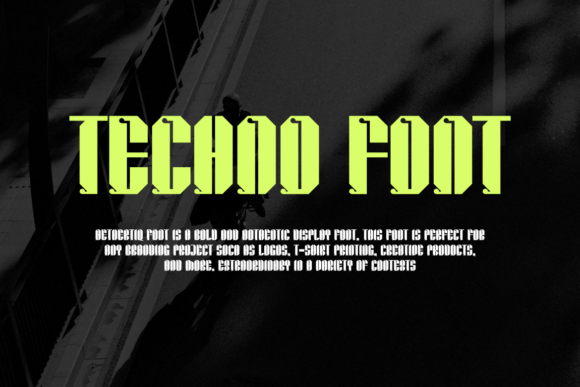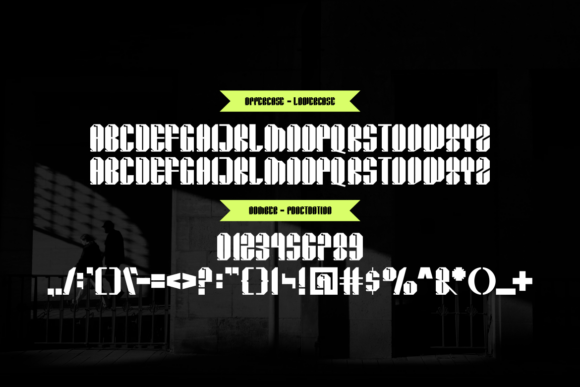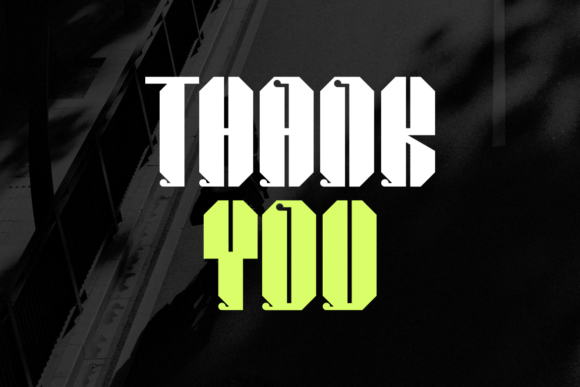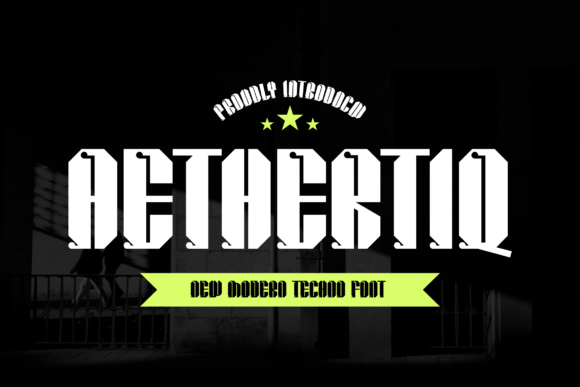
Introducing Aethertiq Font: The Modern Display Font You Need
The Perfect Font for Creative Projects
Aethertiq Font is a bold and authentic display font, perfect for any branding project, such as logos, t-shirt printing, creative products, and more. Its extraordinary versatility makes it suitable for a variety of contexts, from advertising and packaging to digital media and editorial design.
What I Love About Aethertiq Font
- ✨ Unique and modern design: Aethertiq Font boasts a distinctive and contemporary look that will instantly elevate your designs.
- ✅ Highly legible: Despite its bold nature, this font remains clear and easy to read, making it perfect for headlines and titles.
- 💡 OpenType features: Aethertiq Font comes with a range of OpenType features, including stylistic alternates, ligatures, and glyphs, giving you plenty of creative options.
While Aethertiq Font is an excellent choice for many design projects, there are a few minor quirks to be aware of:
- 🤔 Limited suitability for body text: Due to its bold nature, Aethertiq Font may not be the best choice for lengthy body text. It’s ideal for headlines, titles, and short paragraphs.
- ⚠️ Some glyphs require manual adjustment: A few glyphs, such as the ligatures, may require manual adjustment to fit perfectly in your design.
The Designer Inspiration Behind Aethertiq Font
Aethertiq Font was designed with the modern creative in mind. Its unique blend of boldness and elegance makes it perfect for designers who want to add a touch of sophistication to their work. The designer’s inspiration came from a combination of urban landscapes, futuristic typography, and classic elegance.
| Font Name | Aethertiq Font |
| Author | MUKHLISIN |
| What is Aethertiq Font? | Aethertiq Font is a modern display font, perfect for branding projects, logos, t-shirt printing, and creative products. |
| Is Aethertiq Font suitable for body text? | No, Aethertiq Font is best suited for headlines, titles, and short paragraphs. It’s not ideal for lengthy body text. |
| Does Aethertiq Font come with OpenType features? | Yes, Aethertiq Font includes a range of OpenType features, such as stylistic alternates, ligatures, and glyphs. |